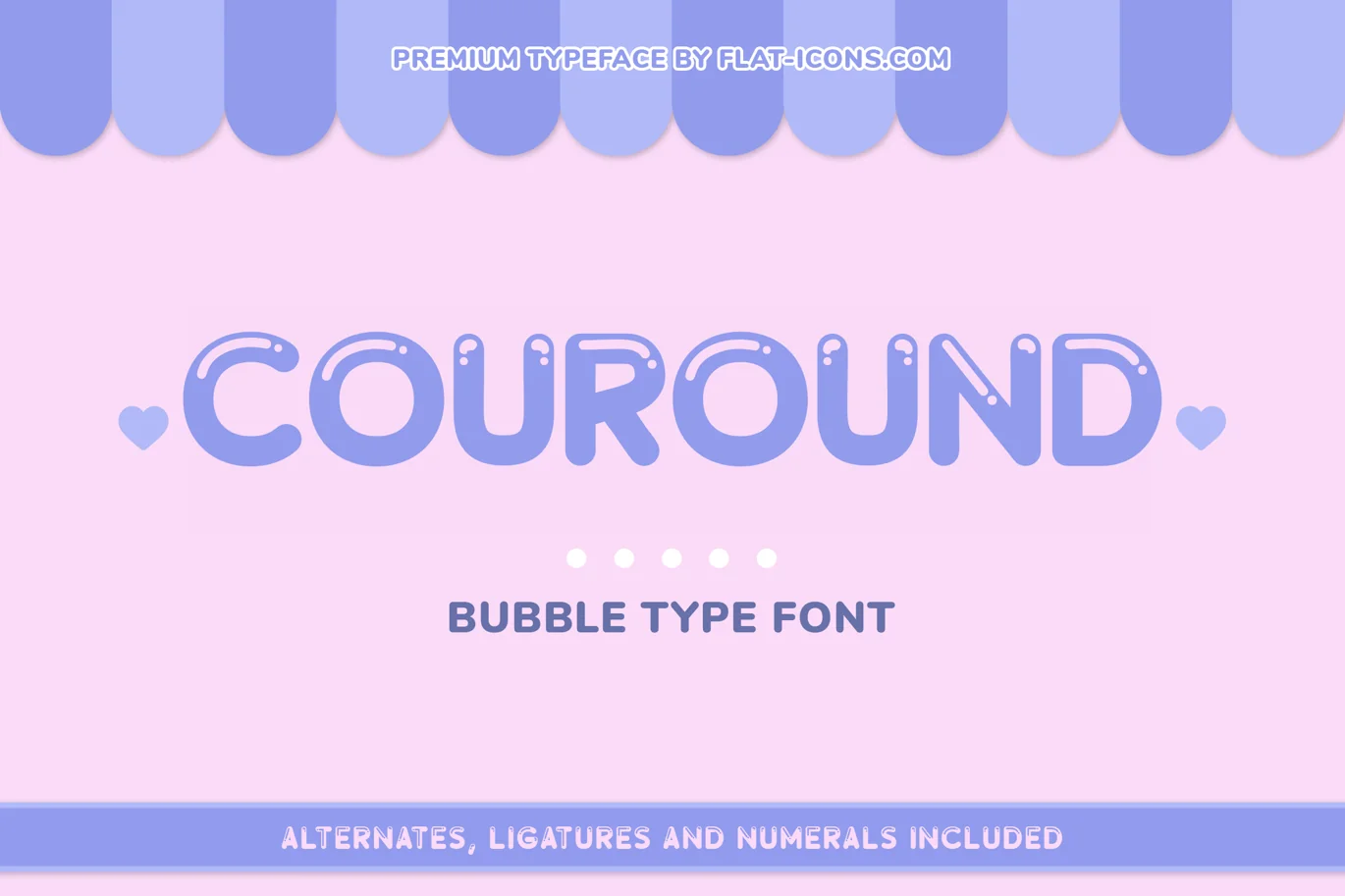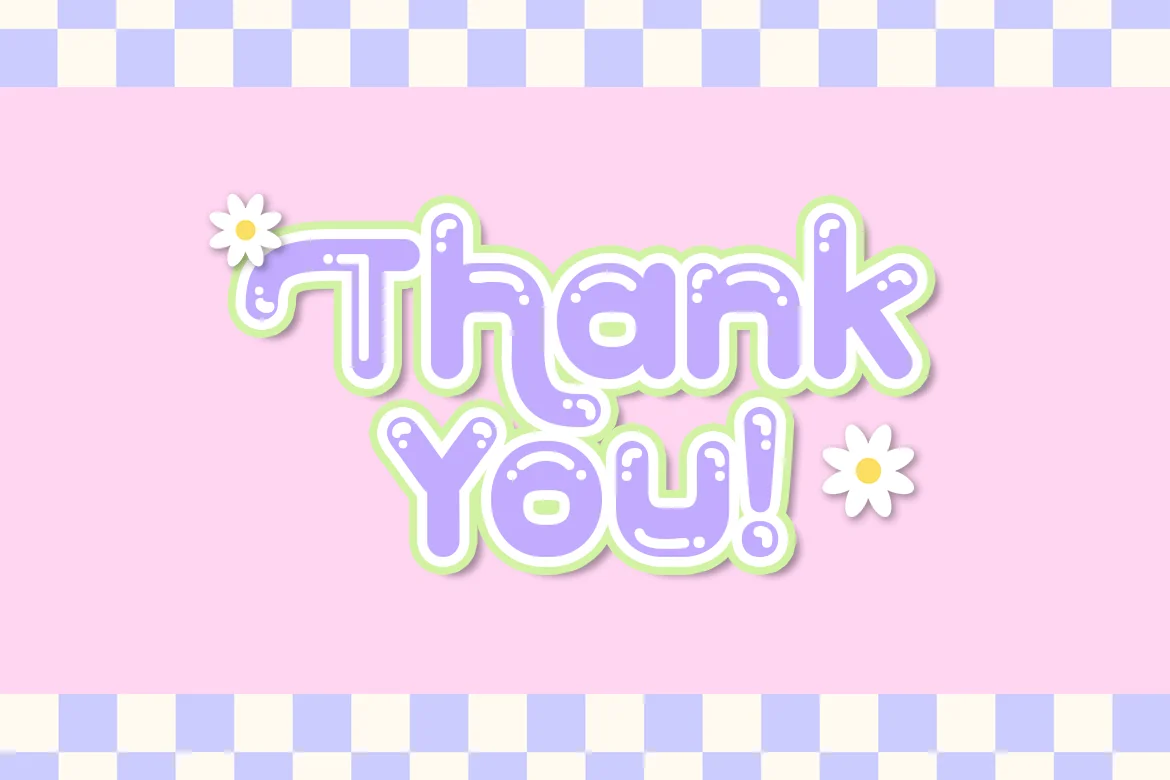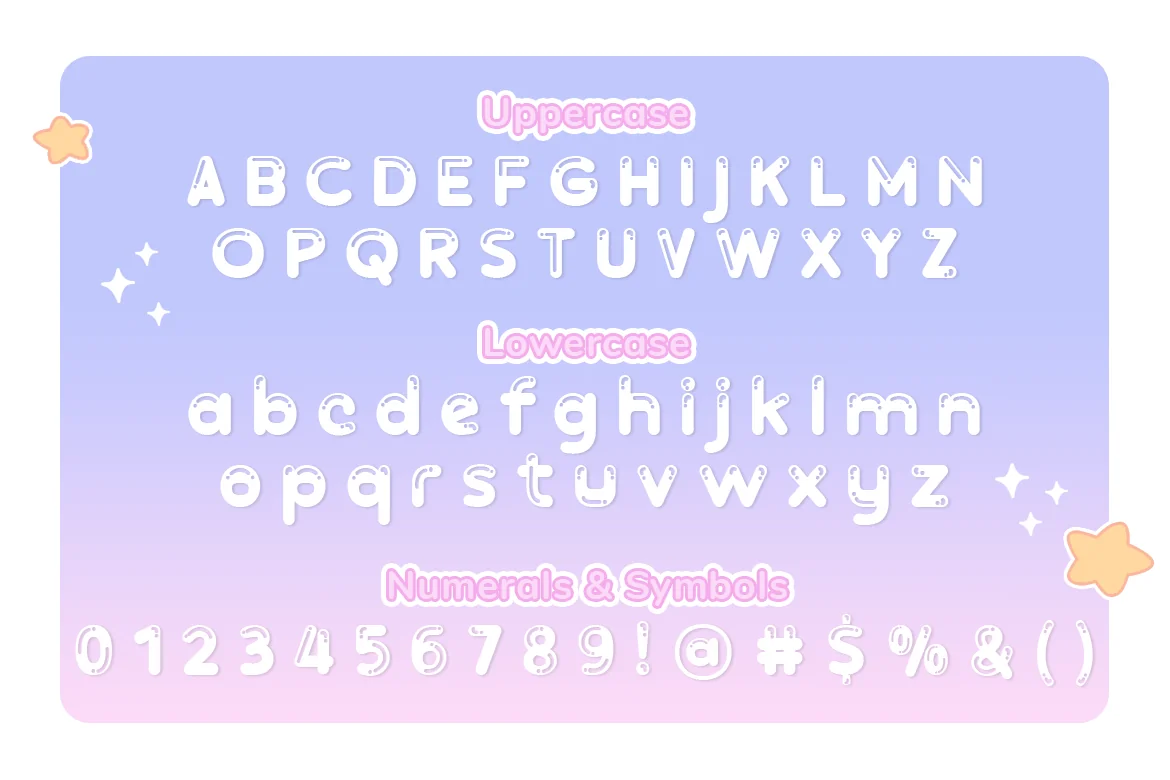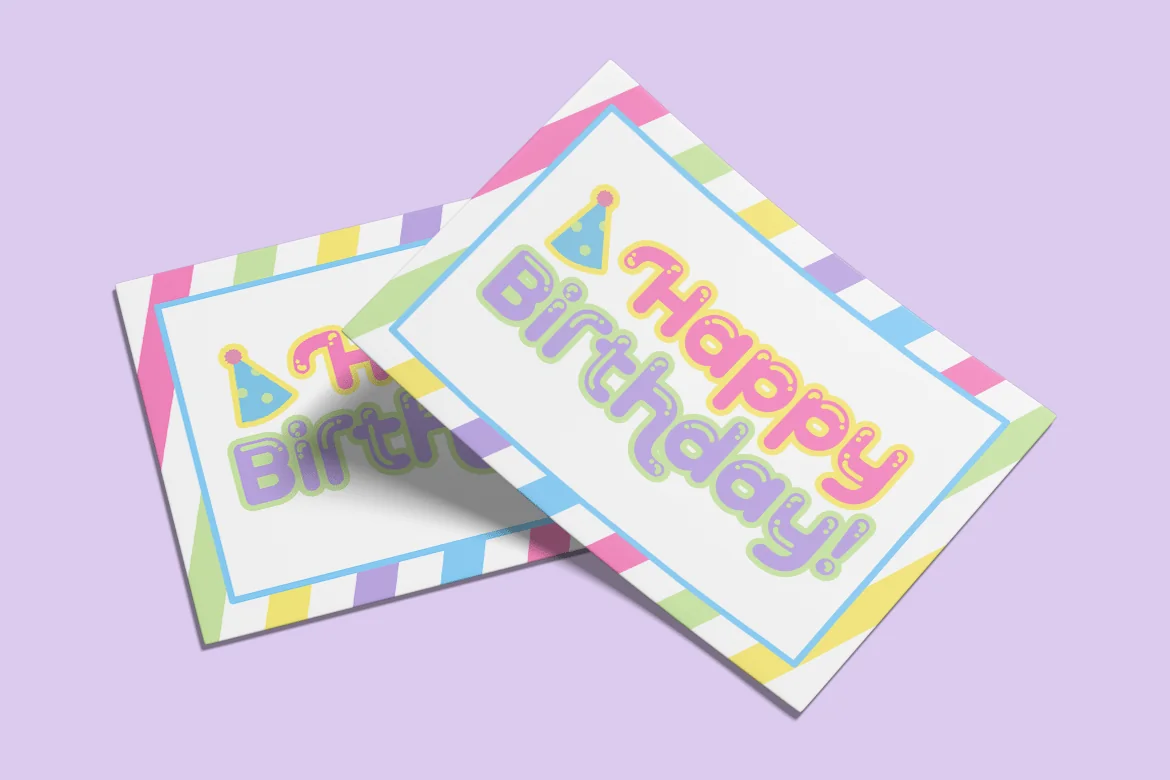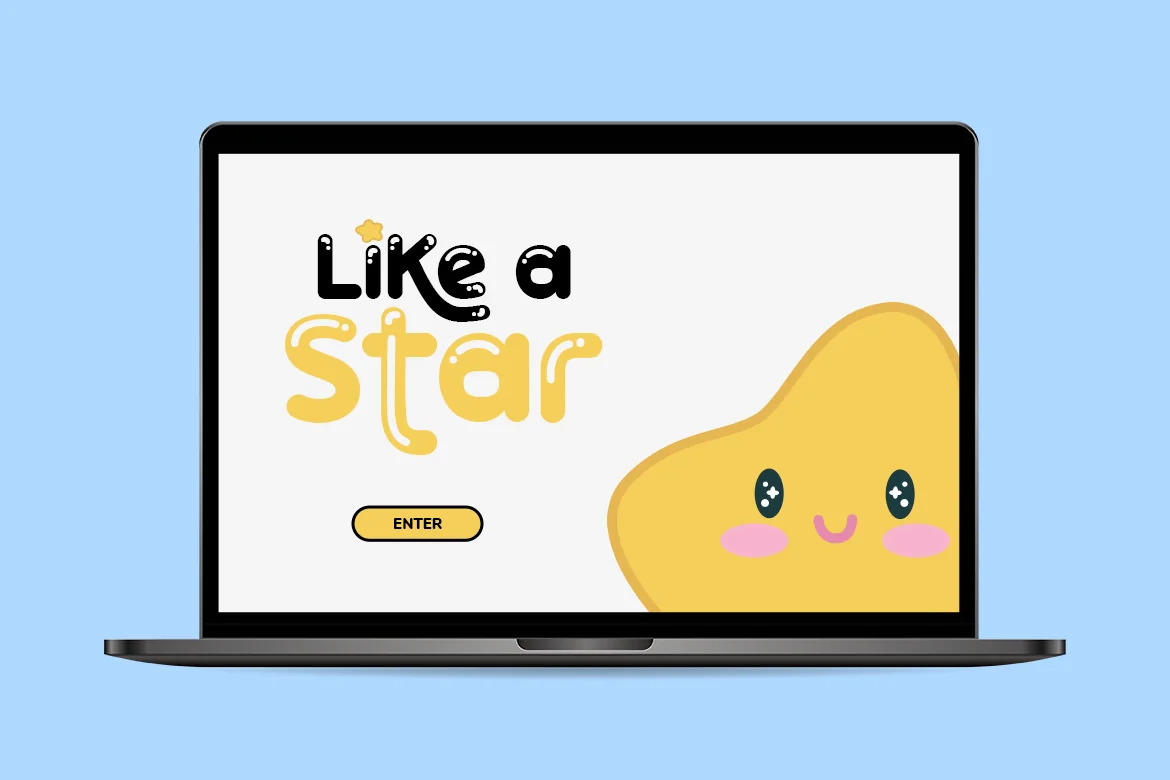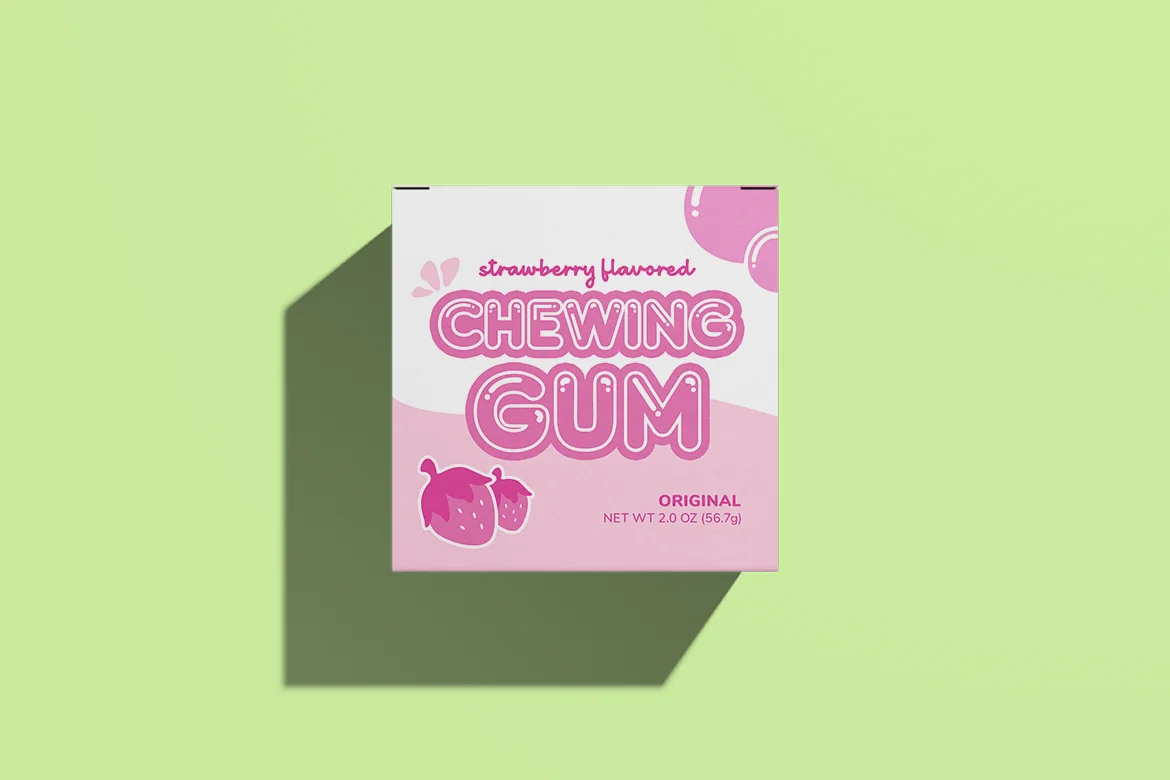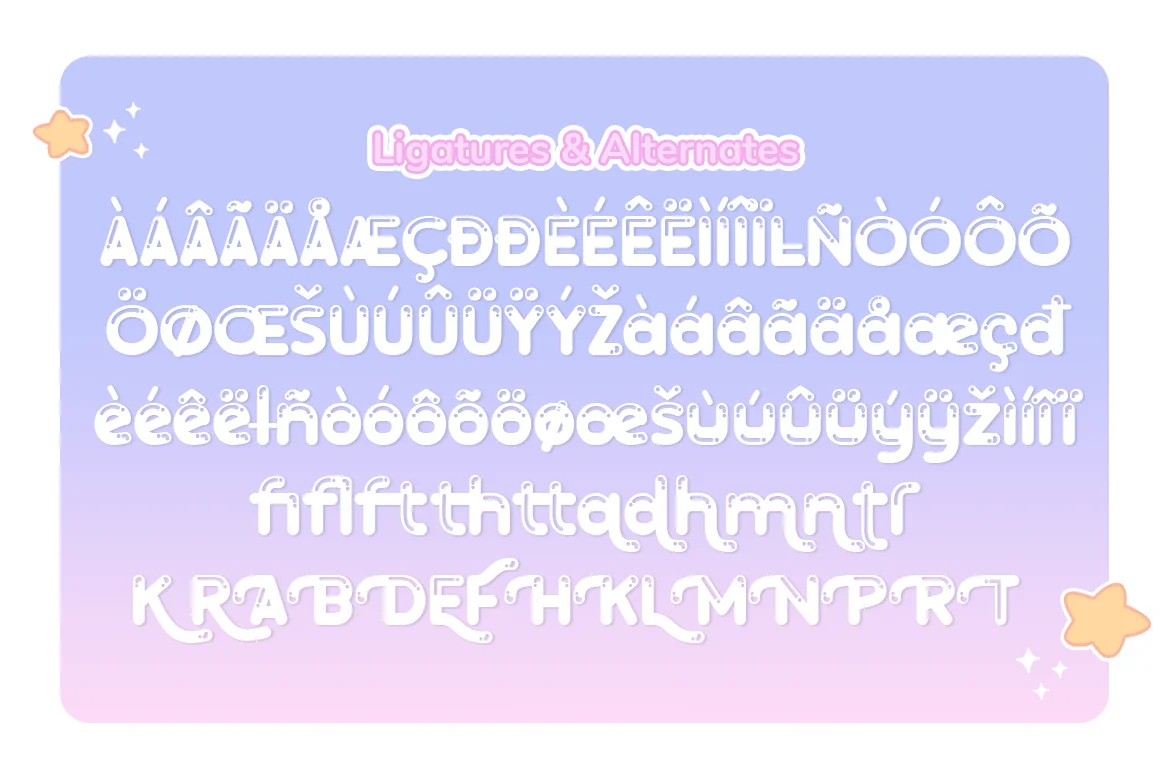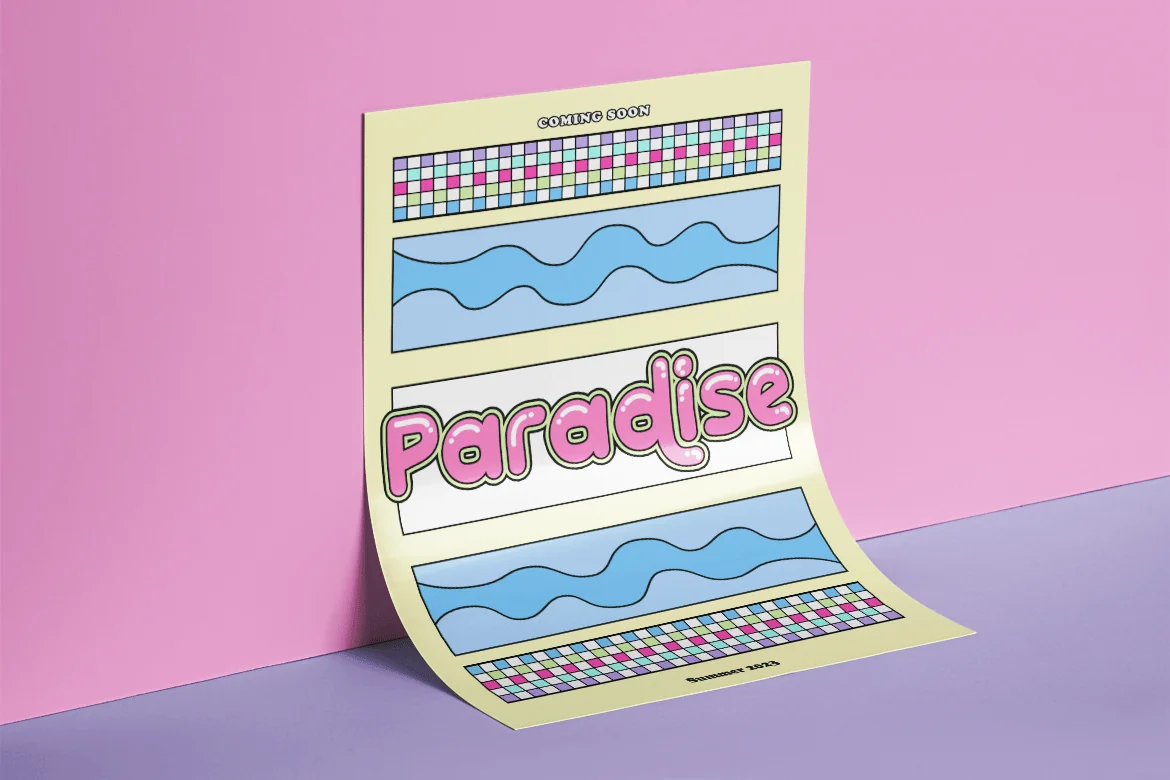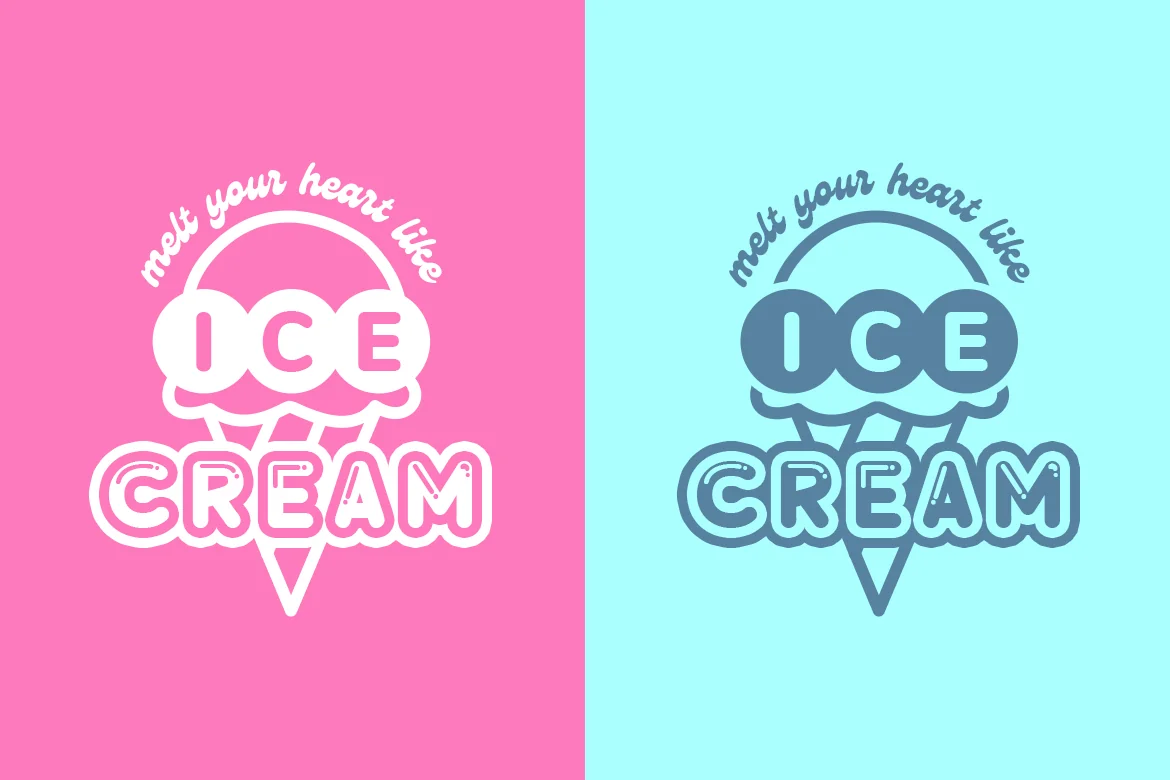
Coround Bubble Font
Introducing Coround – A Bubble Type Font.
Coround is a cute font that features round and smooth edges and playful and friendly vibes. Each character pops with personality, making it perfect for creating eye-catching designs for logos, posters, and more!
- Multilingual & Ligature Support
- Full sets of Punctuation and Numerals